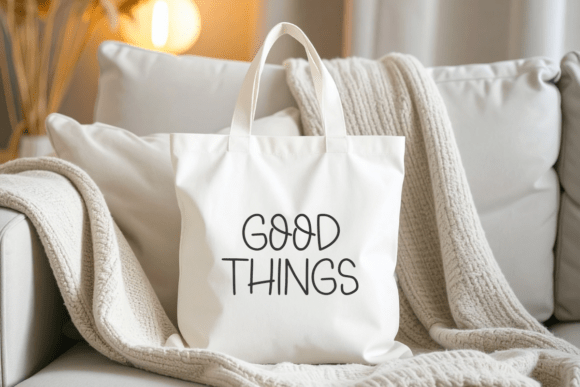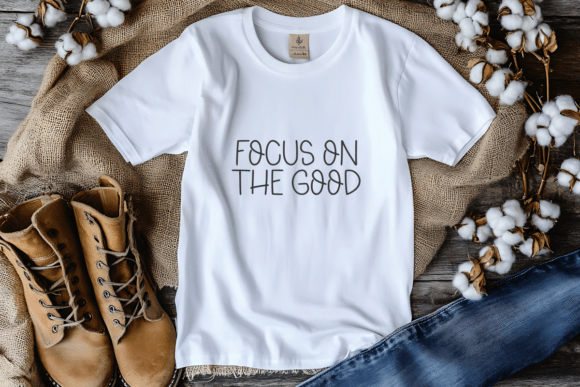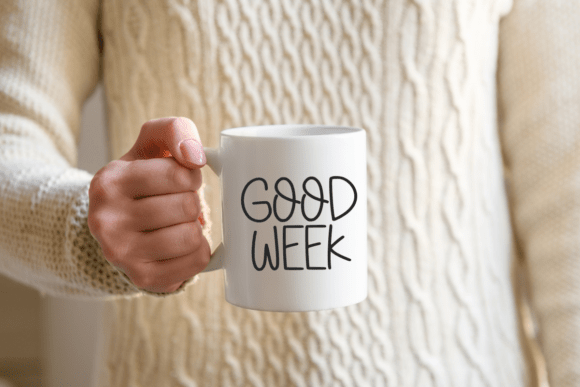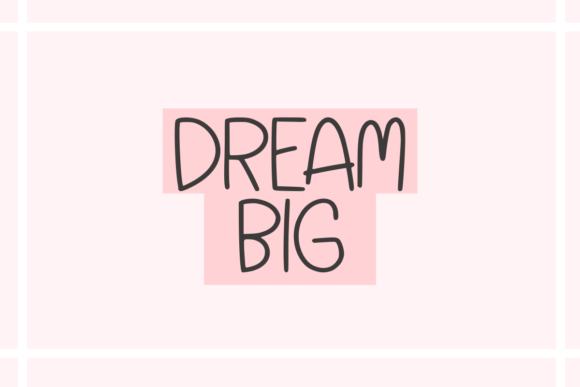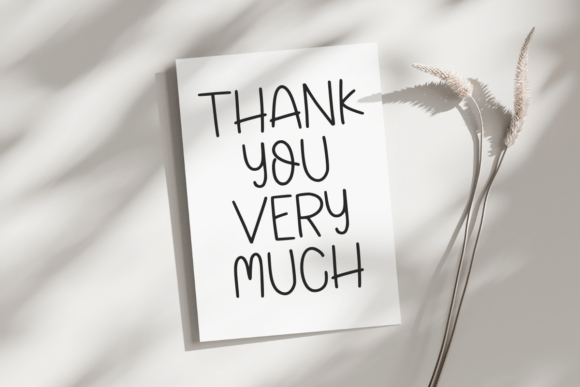
Introducing Brisk Wild Font: The Perfect Handwritten Style for Crafty Projects
Are you a crafter, designer, or DIY enthusiast looking for a font that can add a personal touch to your projects? Look no further than Brisk Wild Font, a cute sans serif handwriting font designed to bring a soft, friendly, and natural look to your creations. In this article, we’ll explore the features and benefits of Brisk Wild Font, and how it can elevate your craft projects, planners, stickers, kids’ worksheets, classroom printables, and DIY designs.
The Characteristics of Brisk Wild Font
Brisk Wild Font is a beautifully designed handwriting font that boasts simple strokes and smooth curves, making it easy to read and use in various projects. Its soft and friendly appearance gives it a warm, handcrafted feel that’s perfect for crafty projects. The font’s sans serif design ensures that it’s clean and modern, while its handwriting style adds a personal touch that’s hard to replicate with traditional fonts.
Perfect for Crafting Moms and DIY Enthusiasts
Brisk Wild Font is specifically designed with crafting moms and DIY enthusiasts in mind. Its adorable handwritten style makes it perfect for creating kids’ labels, coloring pages, worksheets, bullet journals, scrapbooks, and playful graphic projects. The font’s smooth curves and simple strokes also make it easy to cut using Cricut and Silhouette machines, making it a great choice for crafters who love to work with vinyl, paper, and other materials.
Use Brisk Wild Font for a Variety of Projects
The versatility of Brisk Wild Font is one of its greatest assets. Here are just a few ideas for projects where you can use this beautiful font:
- Quotes and posters: Add a personal touch to your inspirational quotes and posters with Brisk Wild Font.
- Greeting cards: Create beautiful and heartfelt greeting cards for special occasions.
- Kids’ labels: Make labeling kids’ belongings a breeze with cute and colorful labels featuring Brisk Wild Font.
- Coloring pages: Create fun and engaging coloring pages for kids using Brisk Wild Font.
- Worksheets: Add a touch of personality to your kids’ worksheets and make learning more fun.
- Bullet journals: Use Brisk Wild Font to create beautiful and functional bullet journals.
- Scrapbooks: Add a personal touch to your scrapbooks and photo albums with Brisk Wild Font.
- Playful graphic projects: Use Brisk Wild Font to create fun and playful graphic projects, such as posters, flyers, and brochures.
Why Choose Brisk Wild Font?
So why choose Brisk Wild Font over other fonts? Here are just a few reasons:
- Unique and adorable design: Brisk Wild Font has a unique and adorable design that’s sure to stand out.
- Easy to read: The font’s simple strokes and smooth curves make it easy to read, even at small sizes.
- Versatile: Brisk Wild Font can be used for a wide range of projects, from crafty projects to commercial designs.
- Easy to cut: The font’s smooth curves and simple strokes make it easy to cut using Cricut and Silhouette machines.
Brisk Wild Font is a beautiful and versatile handwriting font that’s perfect for crafty projects, planners, stickers, kids’ worksheets, classroom printables, and DIY designs. Its soft and friendly appearance, simple strokes, and smooth curves make it easy to read and use in various projects. Whether you’re a crafting mom, DIY enthusiast, or designer, Brisk Wild Font is a great choice for adding a personal touch to your creations. So why wait? Download Brisk Wild Font today and start creating beautiful and unique projects!